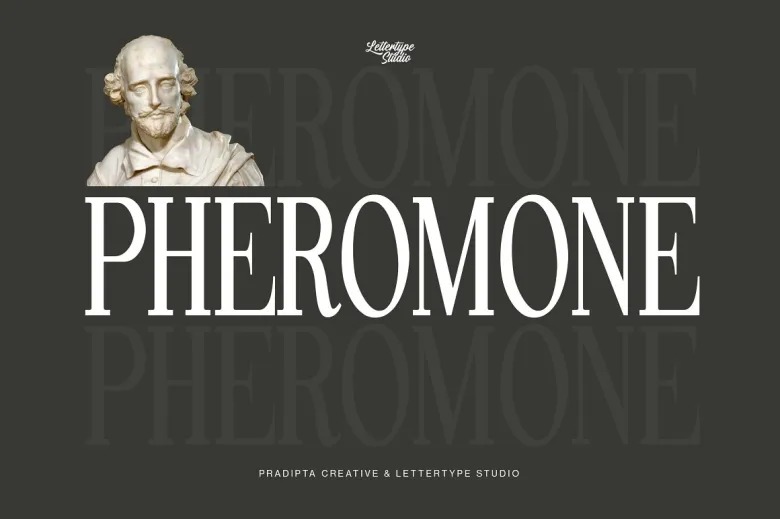
Pheromone is a celebrated contemporary serif typeface that stands out with its condensed and sophisticated style. Known for its traditional yet modern appeal, it excels in design projects that require impactful text within limited space. Whether used for headlines or branding, Pheromone adds clarity and elegance, making it an ideal choice for designers seeking a bold yet refined look.
This versatile typeface thrives in various applications, from logos and posters to product labels and wedding invitations. Its memorable impact ensures your project will leave a lasting impression, offering both personal use for free and a commercial license for broader applications. With Pheromone, designers can achieve a balance of elegance and modernity across a wide range of creative contexts.